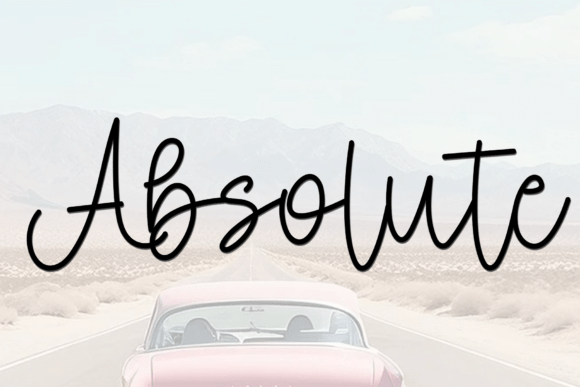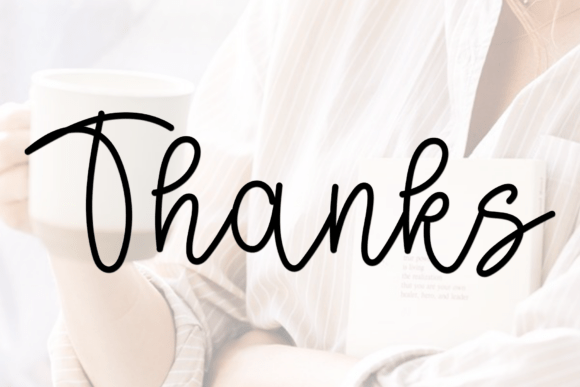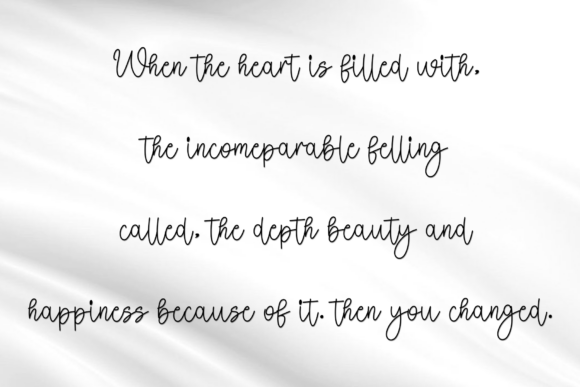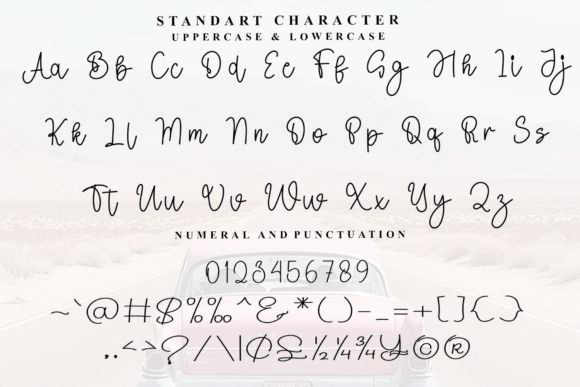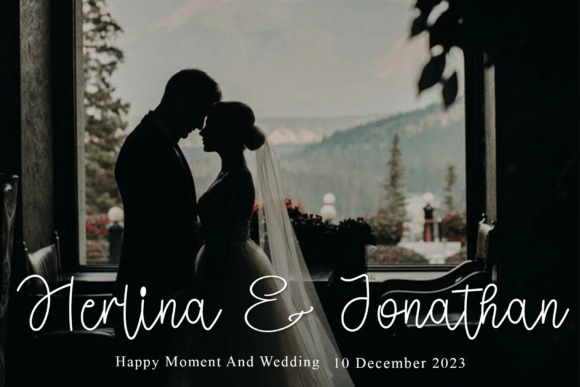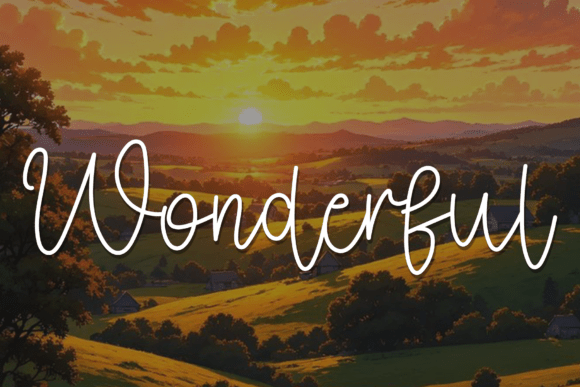
Introduction to Signature Handmade Font
Do you remember the feeling of excitement when you stumble upon the perfect design resource for your creative project? It’s that moment when all the pieces come together, and your vision starts to take shape. For designers, finding the right font can make all the difference between a mediocre and an exceptional design. That’s where the Signature Handmade Font comes in – a beautiful and eye-catching typeface that adds a personal touch to any project.
With its unique strokes and distinctive character, this font is perfect for designers who want to add a high-quality, handmade feel to their work. Whether you’re working on a design project, crafting, or simply looking for a free download to enhance your creative output, the Signature Handmade Font is an excellent choice. Its transparent background and compatibility with various applications make it a versatile tool for designers across different artistic fields.
Key Features of Signature Handmade Font
- Unique, Hand-Drawn Design: This font is crafted with love and care to provide a truly one-of-a-kind design resource for your creative project.
- Perfect for Distressed or Vintage Designs: The Signature Handmade Font is ideal for creating distressed or vintage-inspired designs, adding a touch of elegance and sophistication.
Honest Review: Signature Handmade Font
I recently stumbled upon the Signature Handmade Font while searching for a design resource for my current creative project. The font’s unique, high-quality aesthetic caught my attention, and I was excited to try it out.
- ✨ High-quality design: The font is incredibly detailed and has a lot of character, making it perfect for creative projects that require a touch of personality.
- ⚠️ Limited character set: The font only includes a limited set of characters, which may not be suitable for projects that require a full range of punctuation and special characters.
- ⚠️ Not suitable for small text: The font’s unique design makes it difficult to read at small text sizes, which may limit its use in certain applications.
Overall, I’m impressed with the Signature Handmade Font’s unique design and high-quality aesthetic. While it has some limitations, it’s a great addition to any designer’s toolkit and is perfect for creative projects that require a touch of personality.
The Signature Handmade Font is a high-quality, free download that can elevate any creative project. This versatile font is perfect for designers and non-designers alike, offering a unique and artistic touch to any design.
The Signature Handmade Font is perfect for a variety of design projects, including:
- Social media graphics and blog posts
- Personal projects, such as scrapbooking and journaling